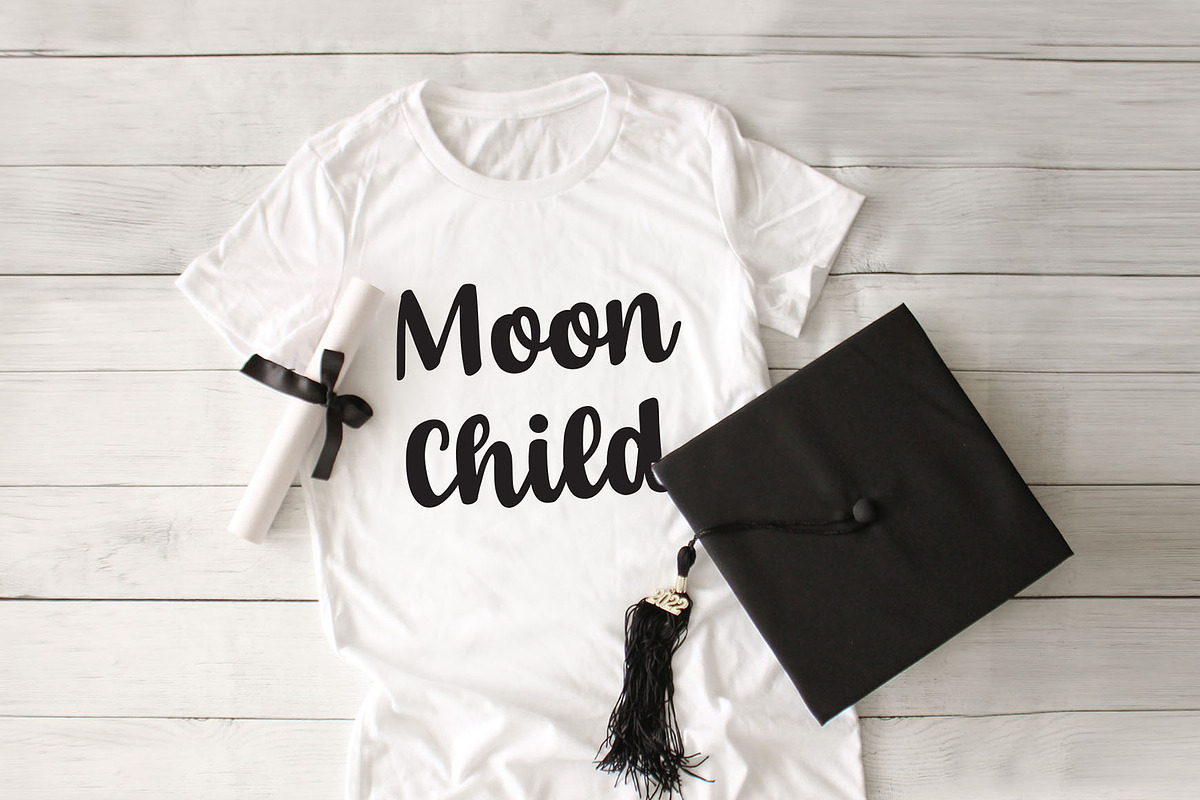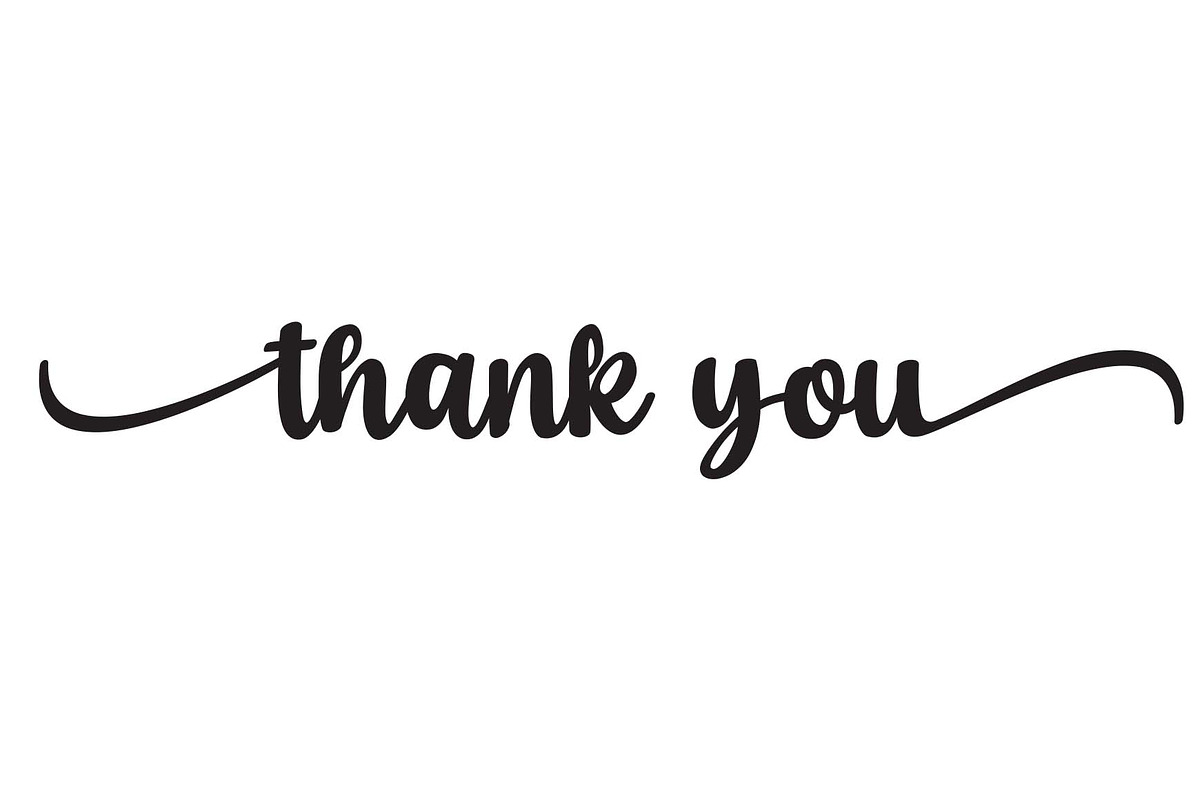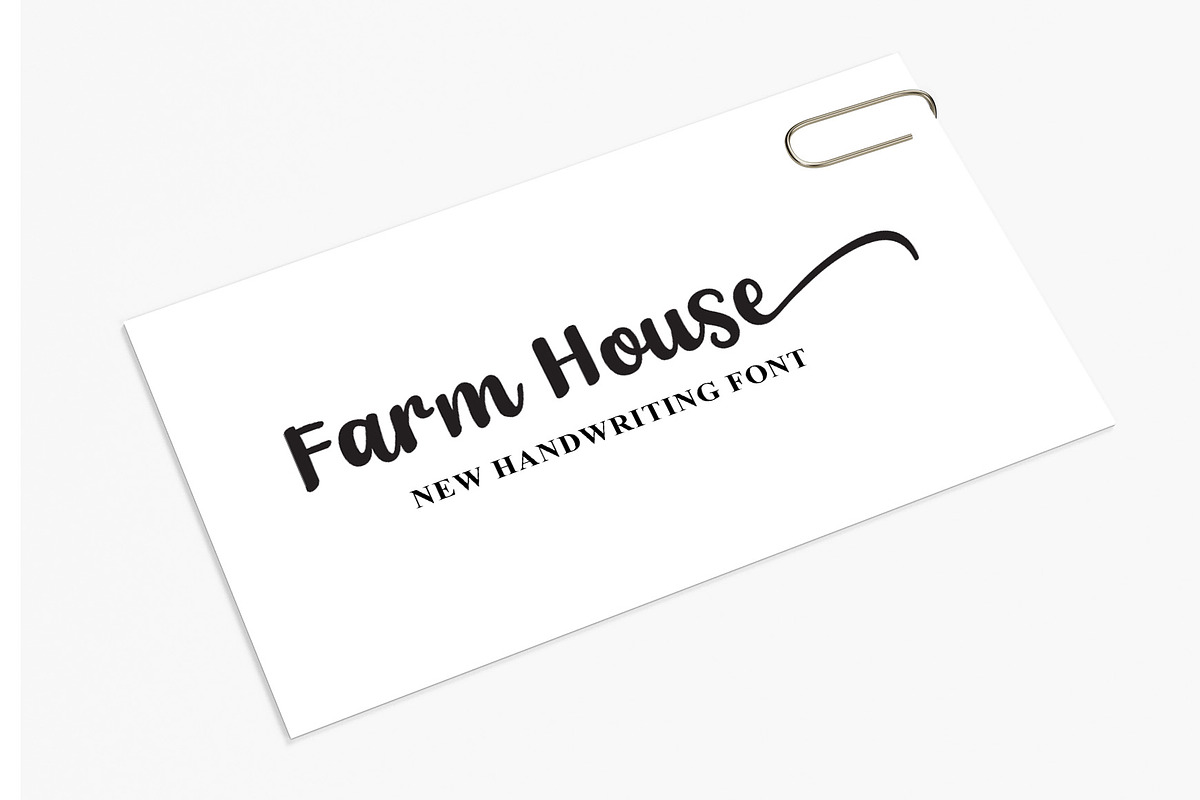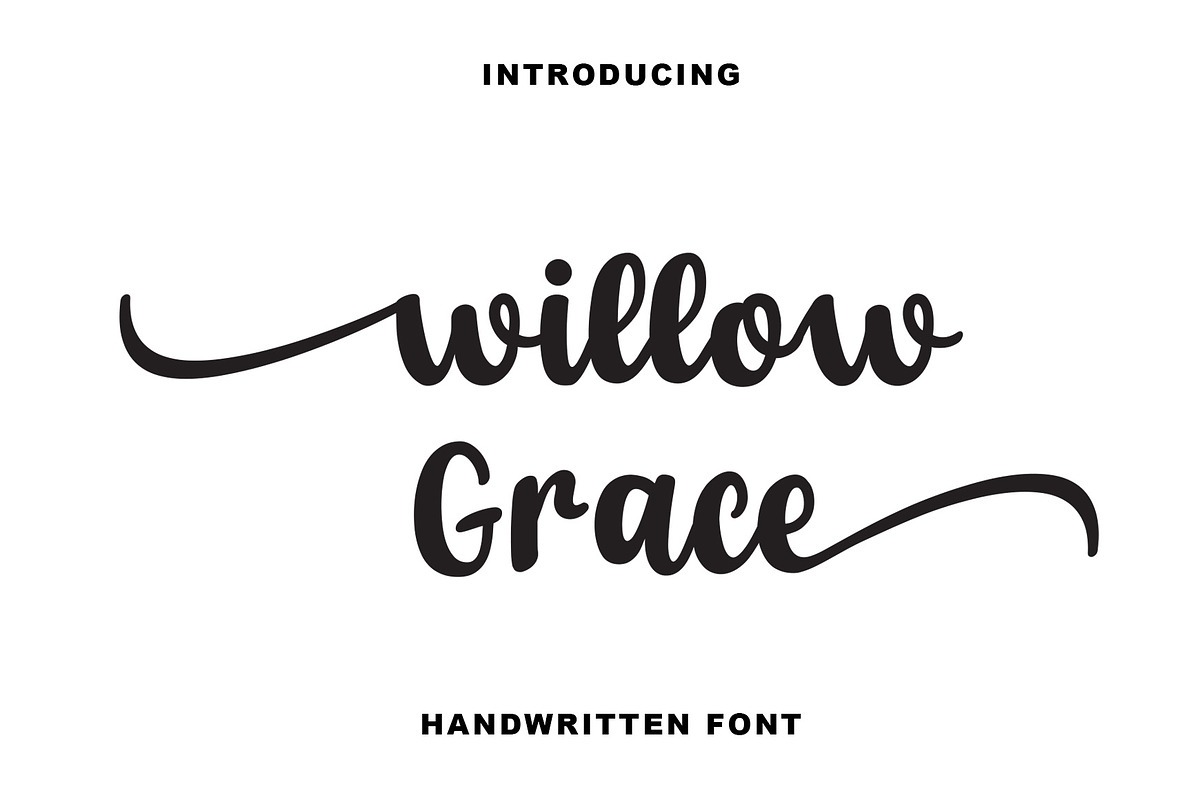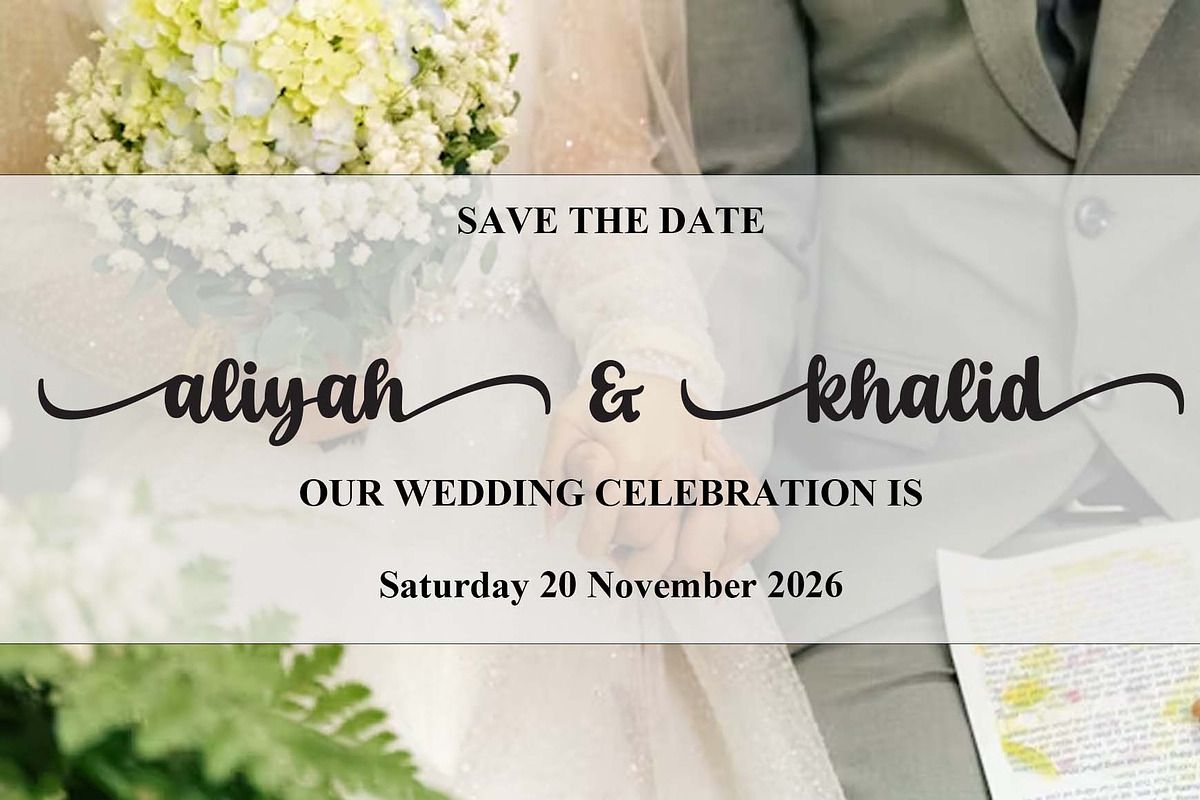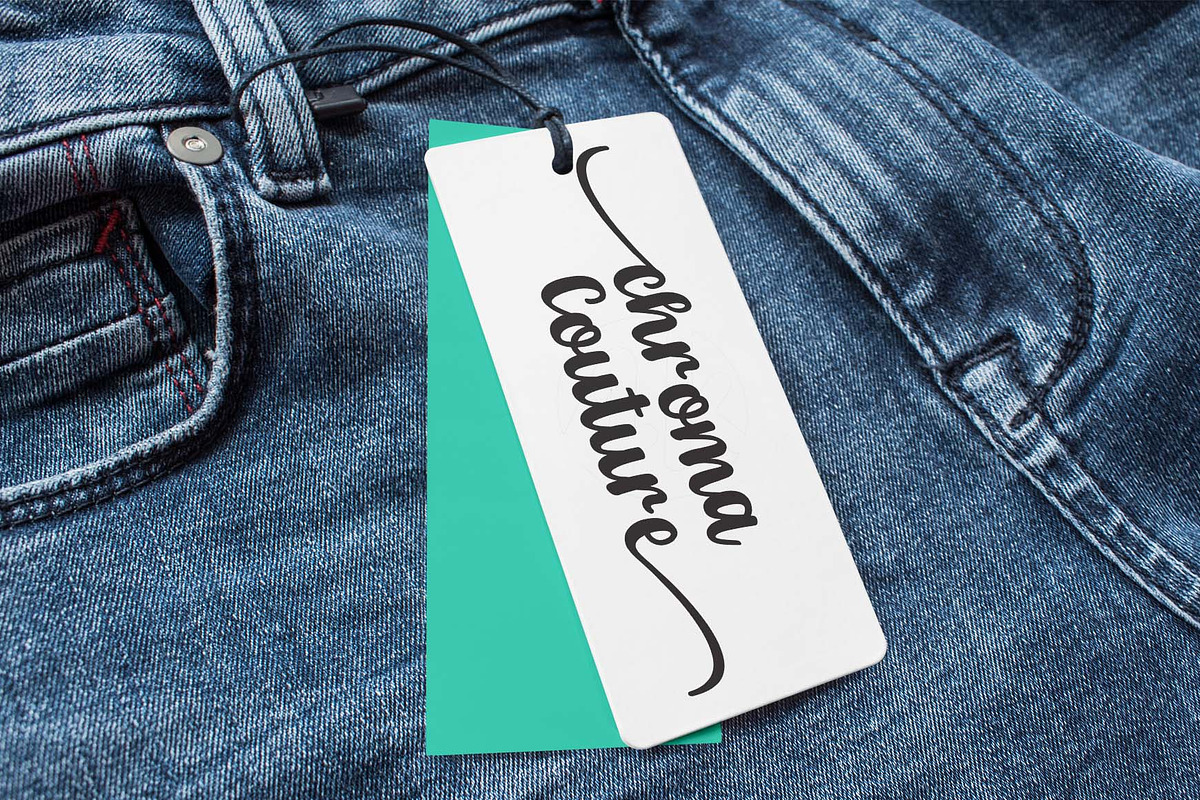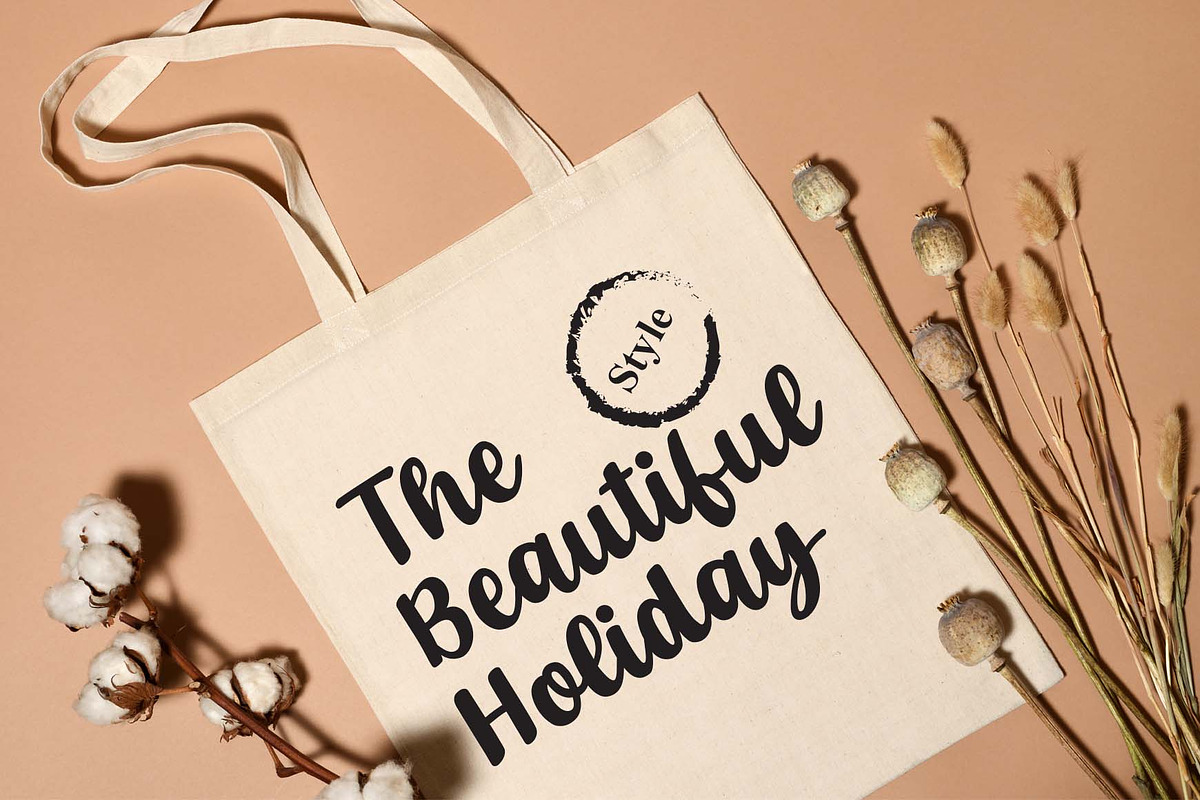
Willow Grace | Elegant Handwritten
Willow Grace is an elegant handwritten script font featuring smooth curves, stylish swashes, and a luxurious signature style. Perfect for fashion branding, logos, clothing labels, packaging, wedding invitations, social media graphics, beauty products, and premium marketing materials. Designed to bring a sophisticated and modern touch to your creative projects. Inspired by contemporary fashion and luxury branding trends.
Ligature
Number & Punctuation
Support Multilingual Languange